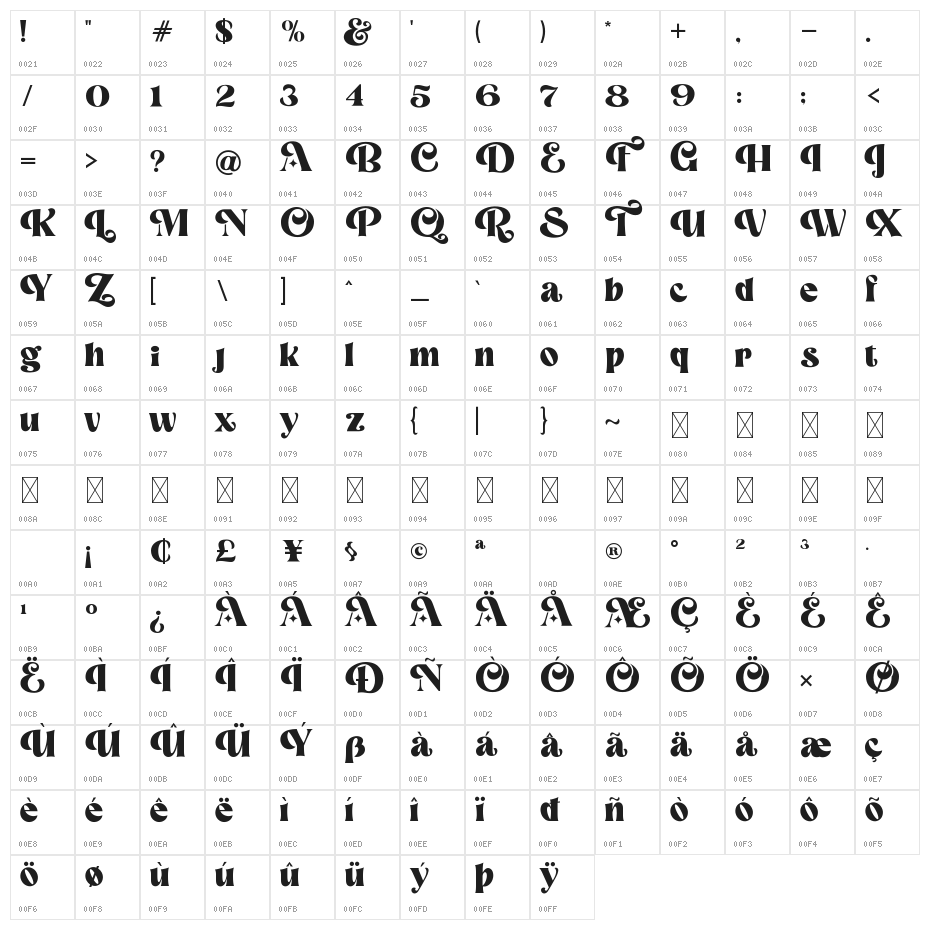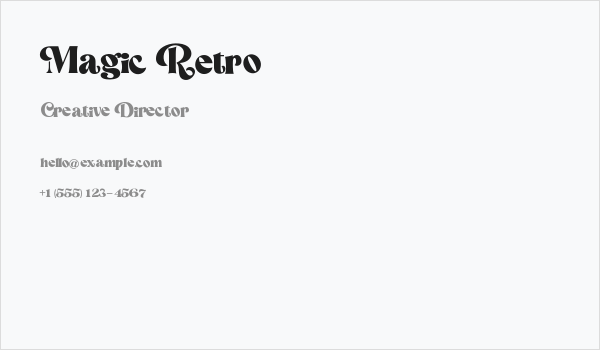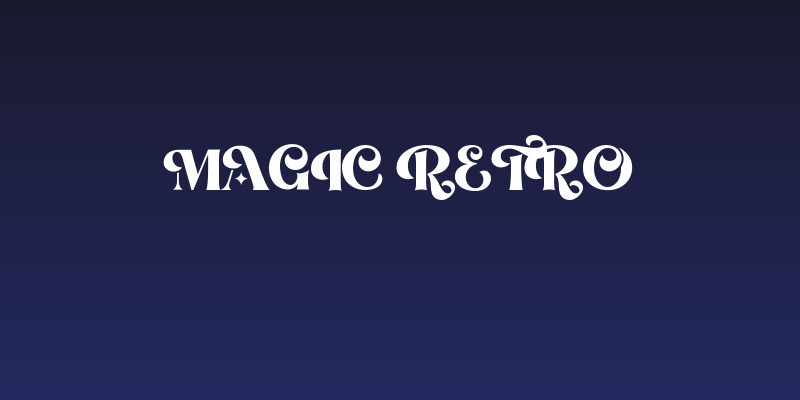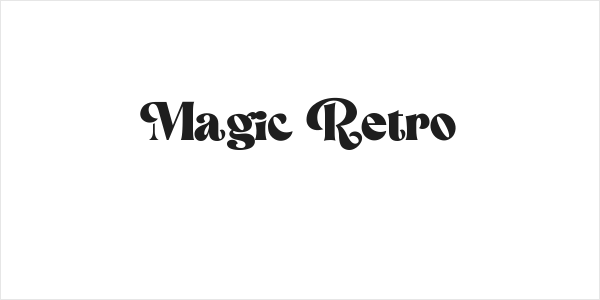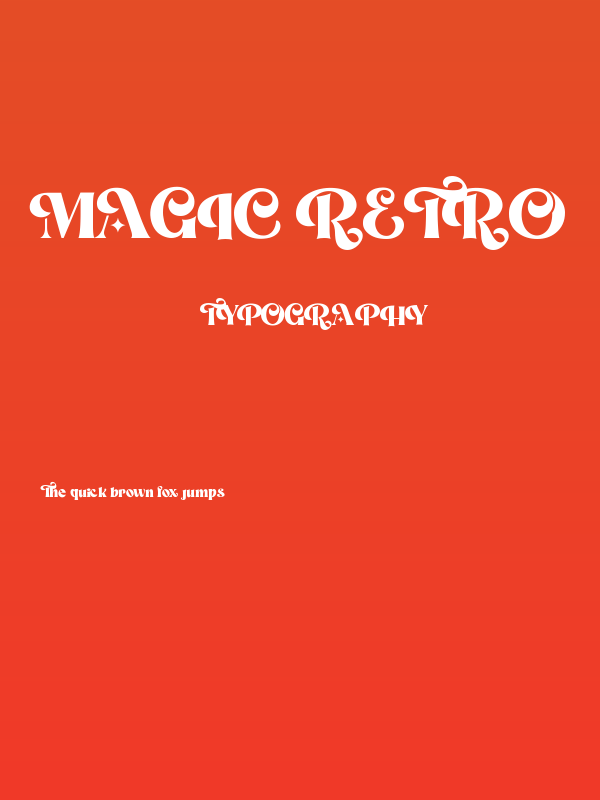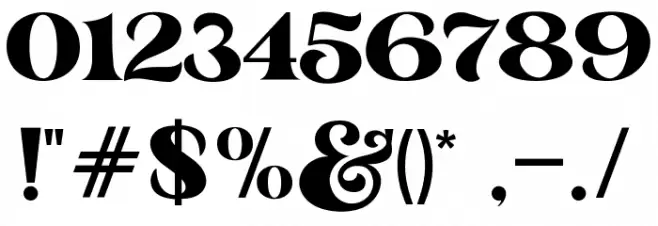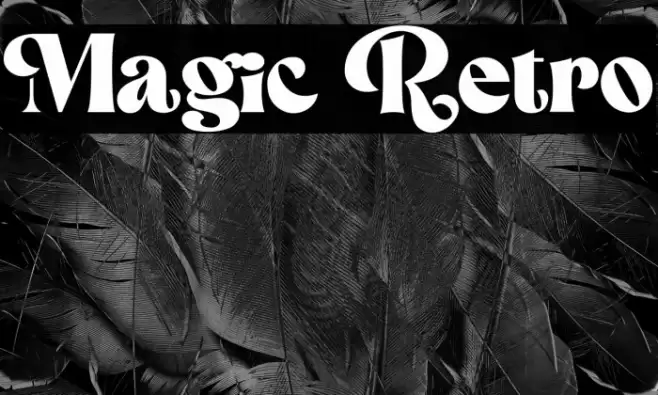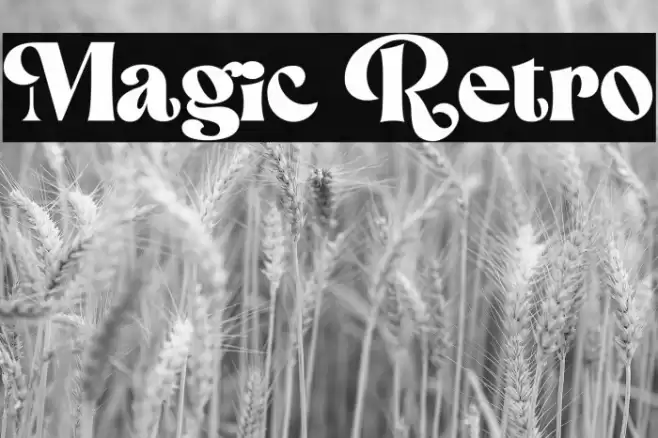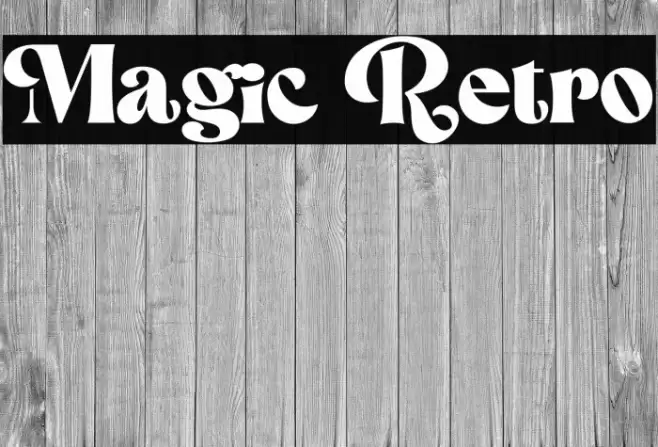
Magic Retro Font
Magic Retro Description
This font exudes a playful and retro vibe, characterized by its bold and whimsical letterforms. The uppercase letters feature unique flourishes and curves, giving each character a distinct personality. The lowercase letters maintain a consistent style, with rounded edges and a slightly condensed form. Numbers are bold and easily readable, while special characters carry the same decorative flair. The overall design is reminiscent of vintage signage or posters, making it ideal for projects that require a touch of nostalgia and fun.
| Overall Style | Vintage |
| Proposed Projects | Ideal for vintage-themed posters, retro branding, playful invitations, and eye-catching headlines. |